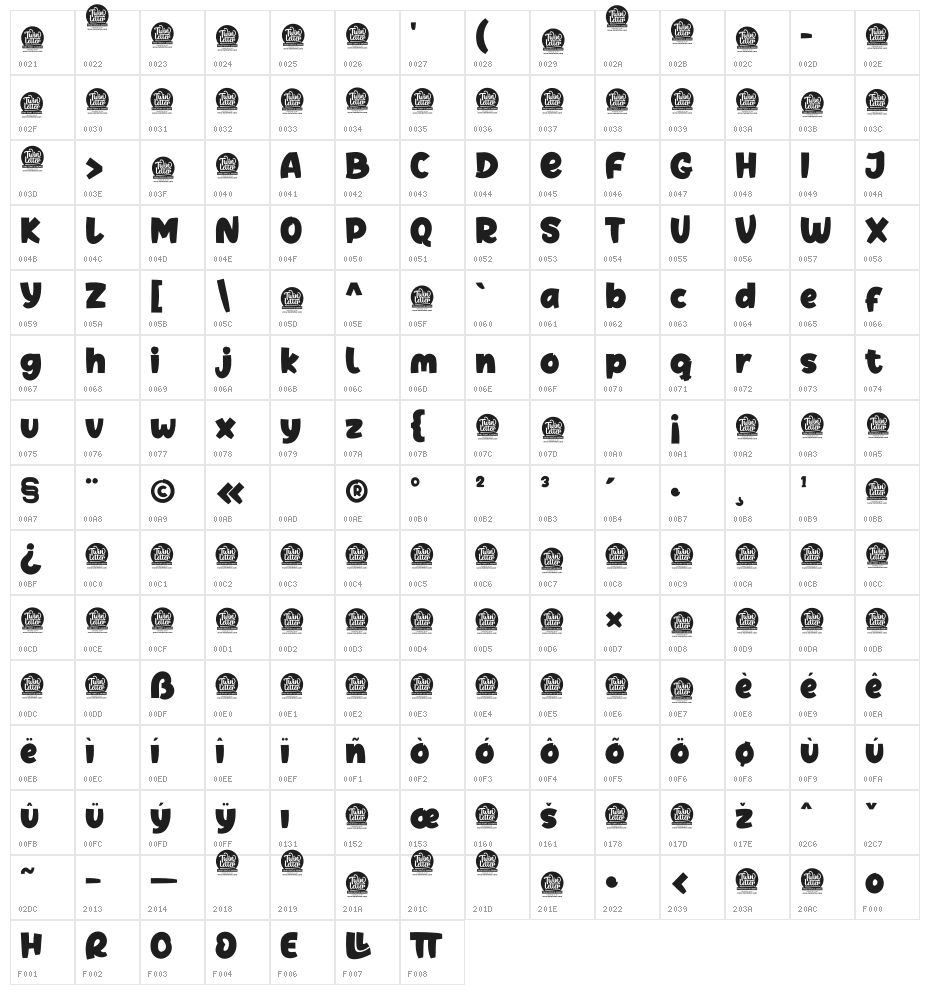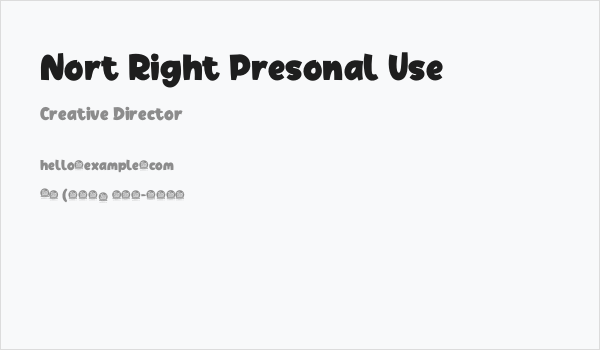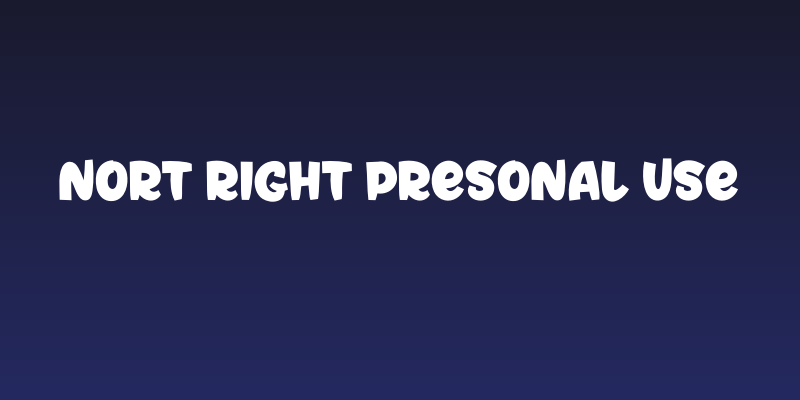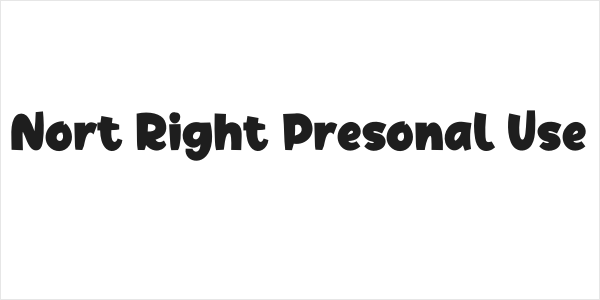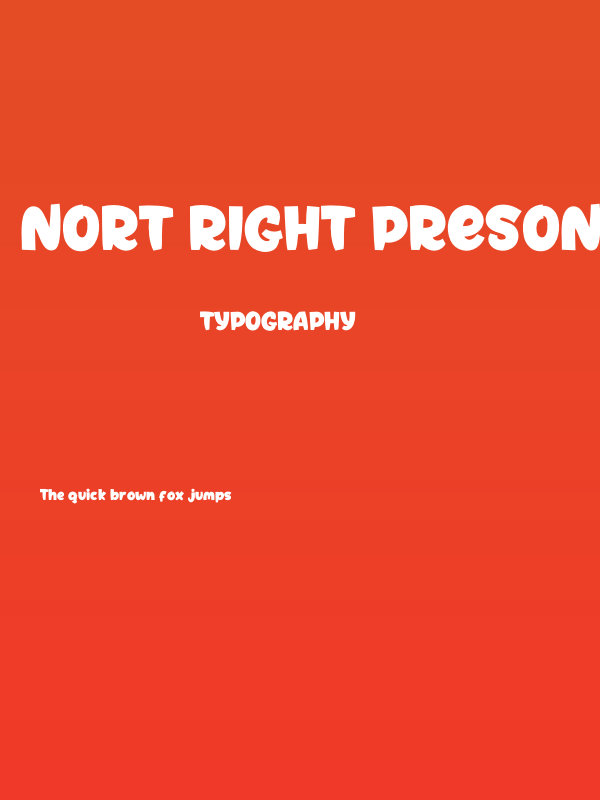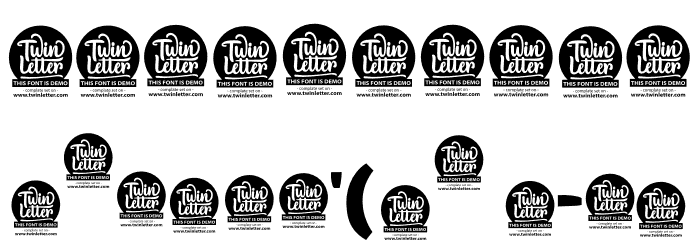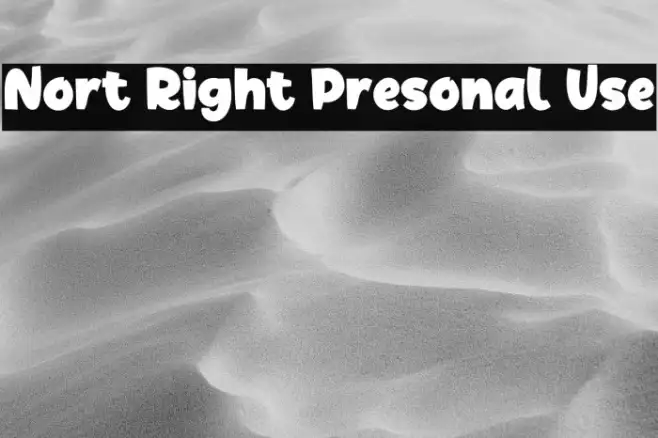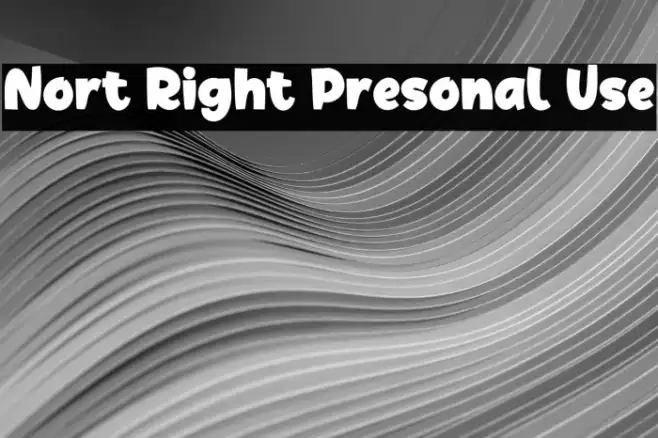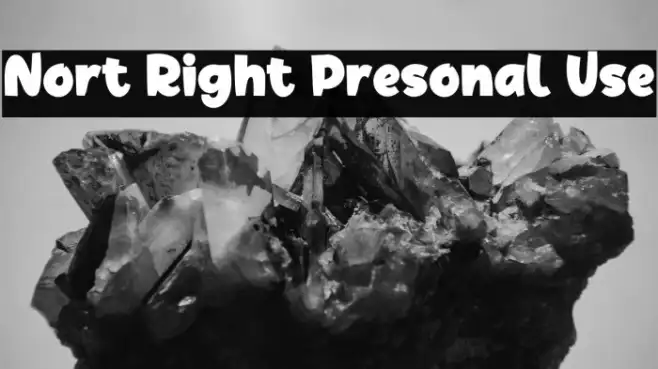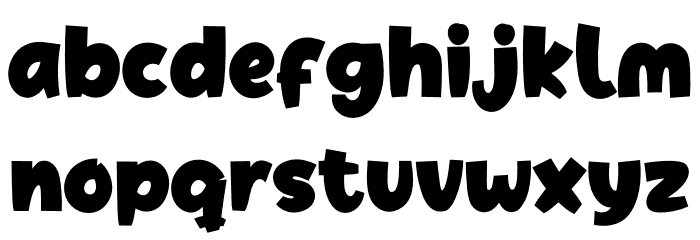
Nort Right Presonal Use Font
Nort Right Presonal Use Description
This playful and bold font features thick, rounded characters with a whimsical and friendly appearance. The uppercase and lowercase letters maintain a consistent style, characterized by their exaggerated curves and slightly uneven lines, giving a hand-drawn feel. The numbers and special characters follow the same design ethos, ensuring uniformity across all glyphs. The font's unique style makes it stand out, with a strong presence that captures attention. Its boldness and rounded edges convey a sense of fun and creativity, making it suitable for projects that require a lively and engaging typeface.
| Proposed Projects | Ideal for children's books, playful branding, posters, and creative advertising campaigns. |